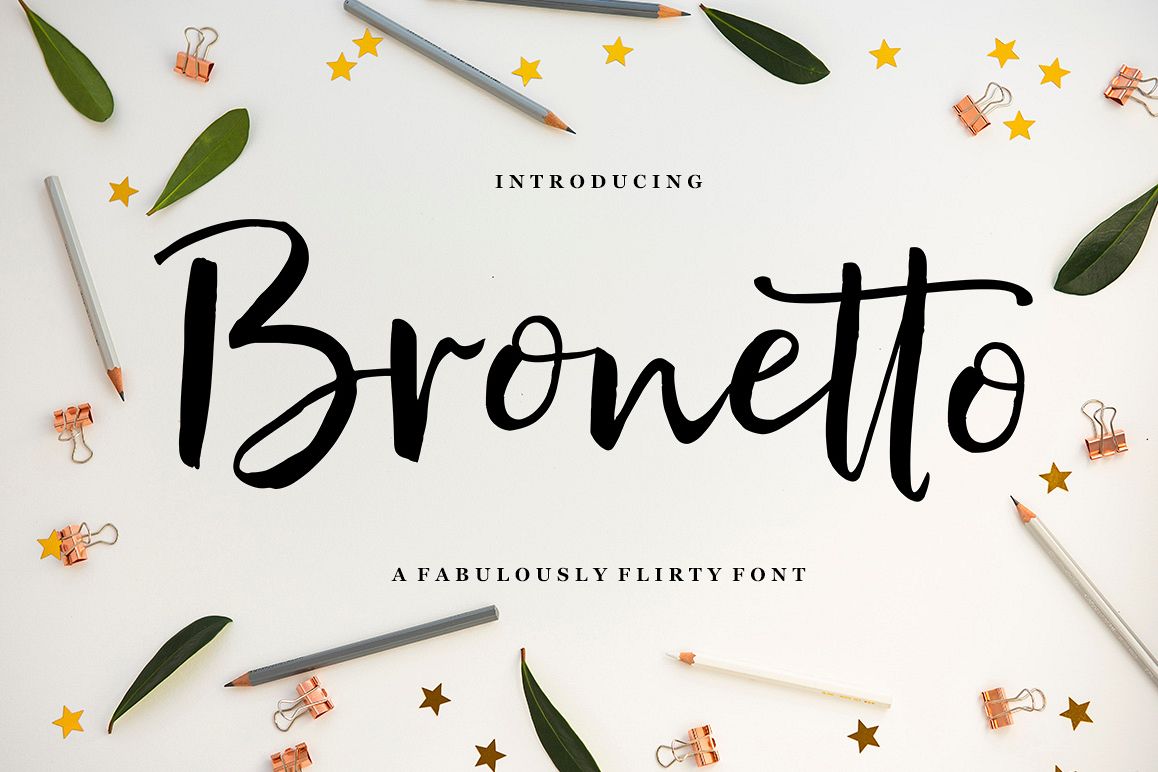
Bronetto Script
WELCOME ! the new Bronetto Script Font. It's an modern typeface with a tasty flow. Bronetto Script features alternate characters, including initial,& end swashes terminal, ligatures and International support for most Western Languages is included.
This one should make your designs instantly professional and jaw-dropping! Be a perfect professional in a minute and start creating modern designs like ads, sales, logos, branding, posters, social media text overlays today!